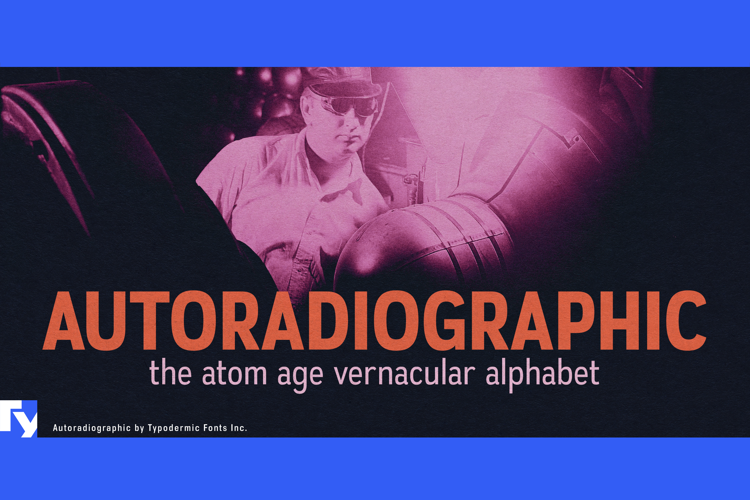
Autoradiographic Font
Autoradiographic draws on Atomic Age laboratories, industrial warning signs, radiation equipment, and improvised technical lettering. Its condensed romans and alternating marks suit aerospace testing, museum exhibits, analog electronics, control panels, and scientific instrument graphics.